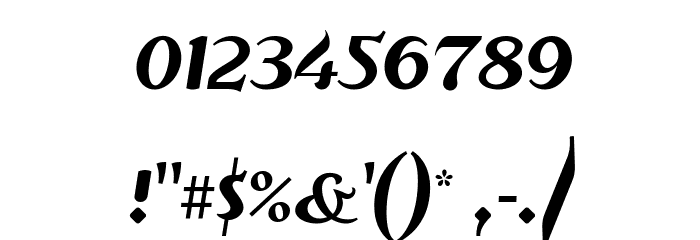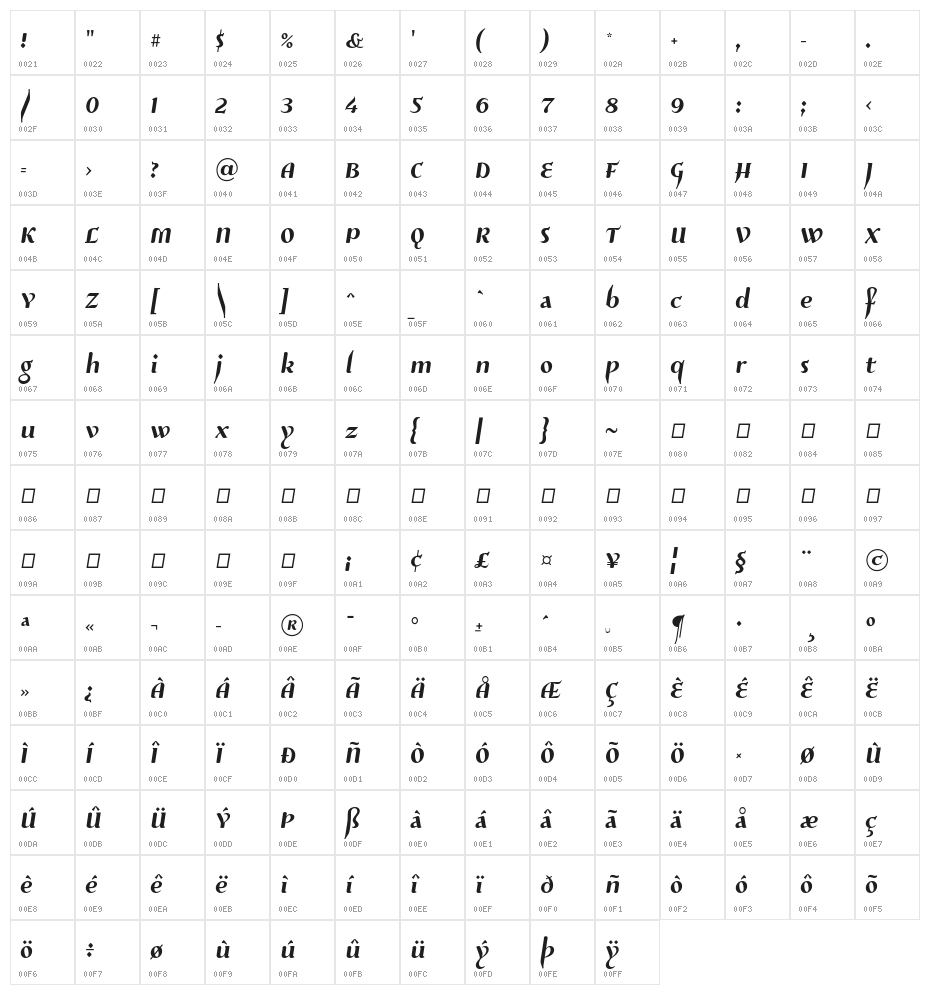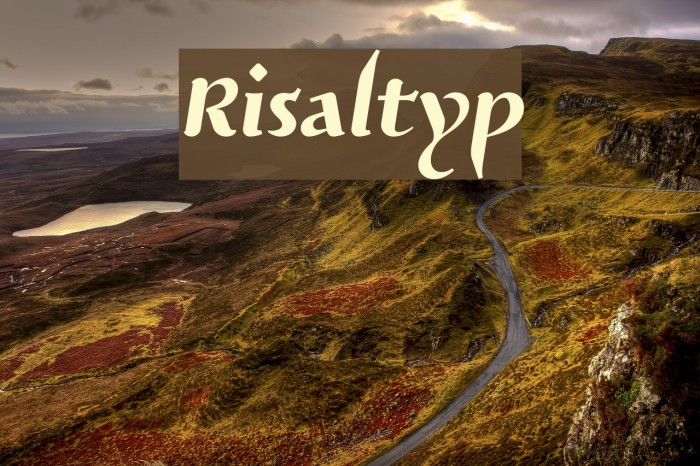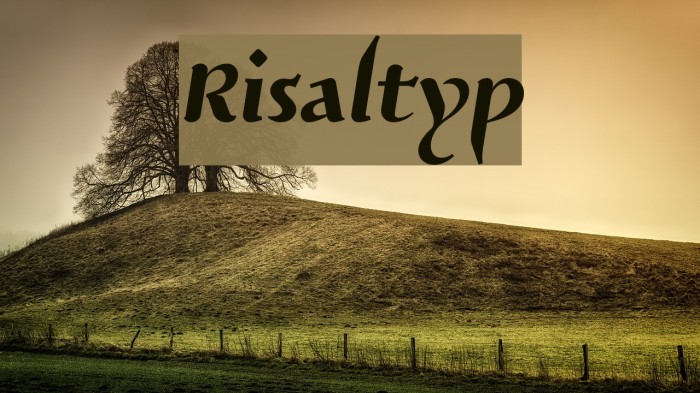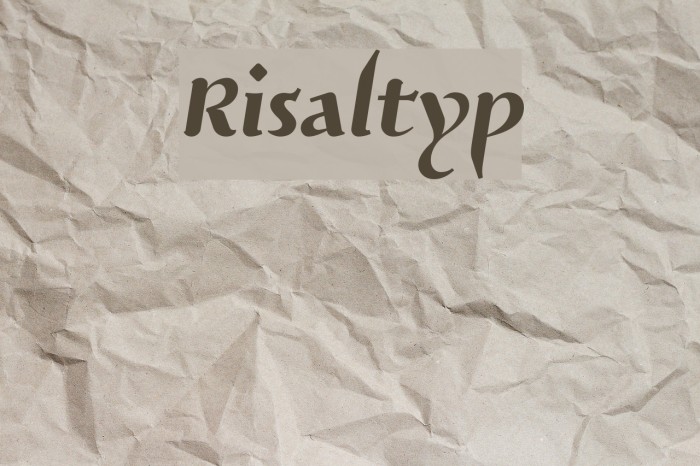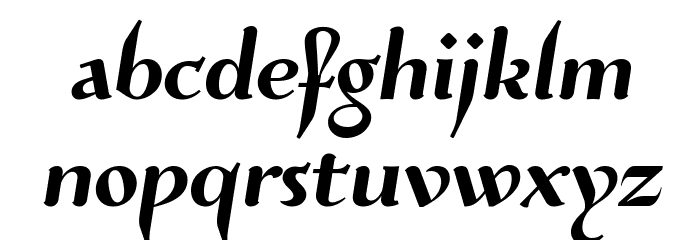
Risaltyp Font
Risaltyp Description
This font exhibits a dynamic and elegant style, characterized by its flowing, calligraphic strokes and distinct flair. The uppercase letters feature a unique blend of sharp and smooth curves, giving them a sophisticated yet approachable appearance. The lowercase letters maintain a consistent rhythm, with some characters extending below the baseline, adding to the font's graceful nature. The numerals are well-balanced, complementing the overall aesthetic. Special characters are thoughtfully designed, ensuring they integrate seamlessly with the rest of the typeface. This font's artistic quality makes it suitable for creative and expressive design projects.